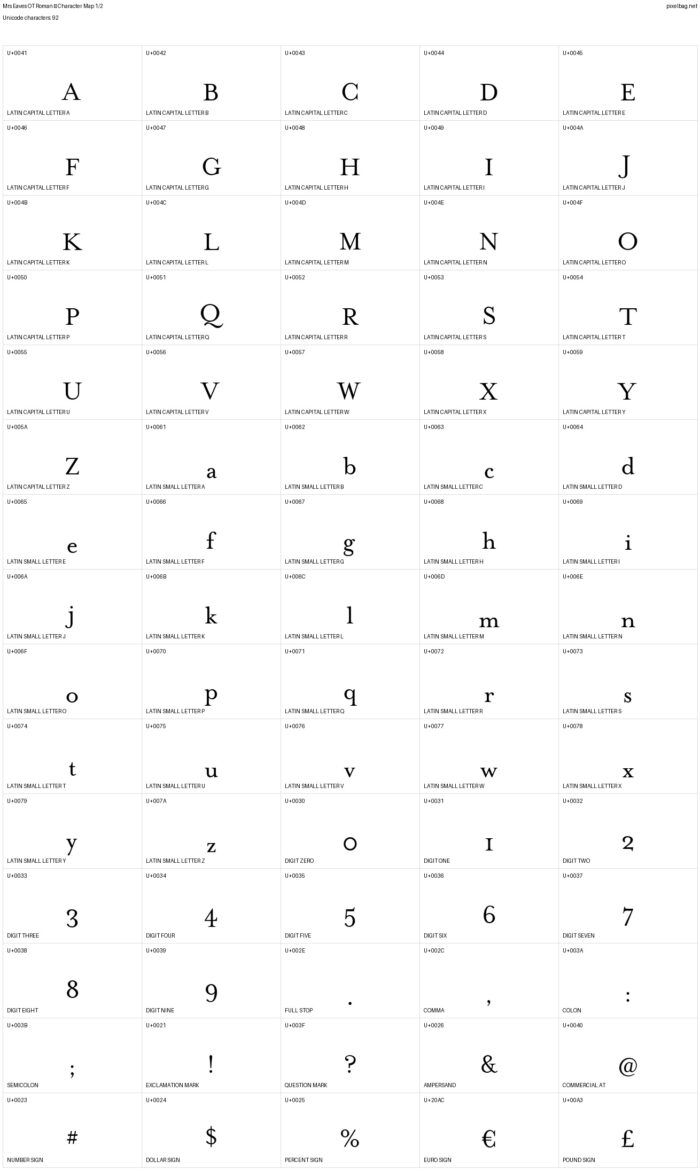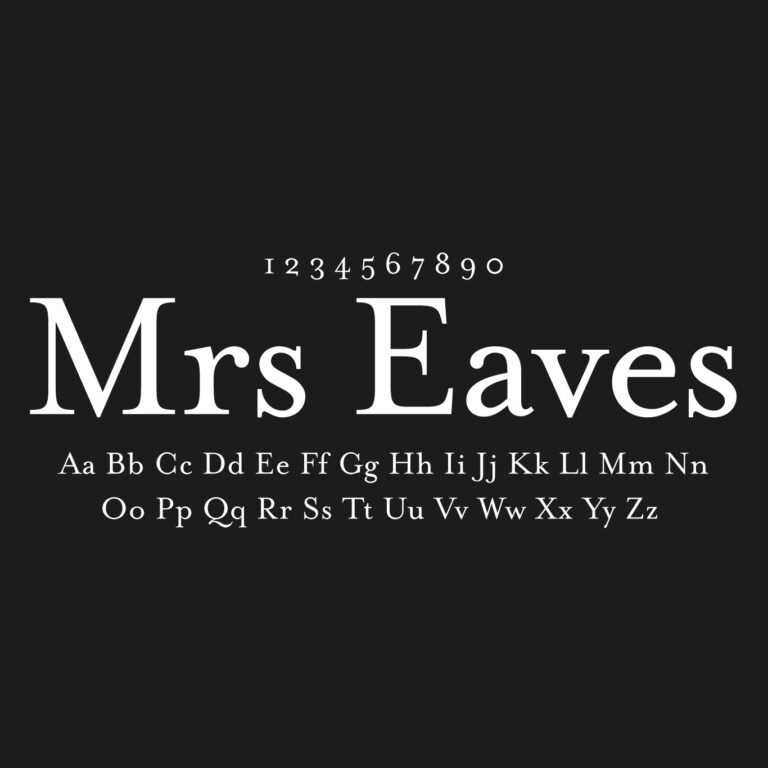
Mrs Eaves works particularly well for book covers, editorial titles, invitations, packaging, branding and short passages where a classic serif needs more personality than a conventional text face. Its loose spacing and relatively small x-height give the typeface an open, graceful appearance.
- Font name: Mrs Eaves
- Category: Serif
- Style: Transitional Serif
- Designer: Zuzana Licko
- Foundry: Emigre
- Released: 1996
Zuzana Licko designed Mrs Eaves for Emigre in 1996. The typeface is based on the ideas behind John Baskerville’s famous transitional serif designs, but Licko did not simply reproduce the original letterforms. She studied printed examples of Baskerville and developed a softer interpretation with reduced stroke contrast, wider lowercase characters and more visible personality.
The name Mrs Eaves refers to Sarah Eaves, John Baskerville’s housekeeper and partner, whom he later married. The historical reference connects the modern typeface directly to the Baskerville tradition that inspired its design.
Mrs Eaves became one of Emigre’s best-known typefaces and is especially associated with literary and editorial design. Its generous proportions and loose spacing make it particularly effective on book covers, title pages and short text rather than tightly packed long-form typography.
Small Caps and Petite Caps
The additional Small Caps and Petite Caps files provide more options for editorial typography, names, abbreviations, headings and refined title treatments. The Lining version provides lining numerals that align more closely with capital letters, making them useful in titles, tables and other structured typography.